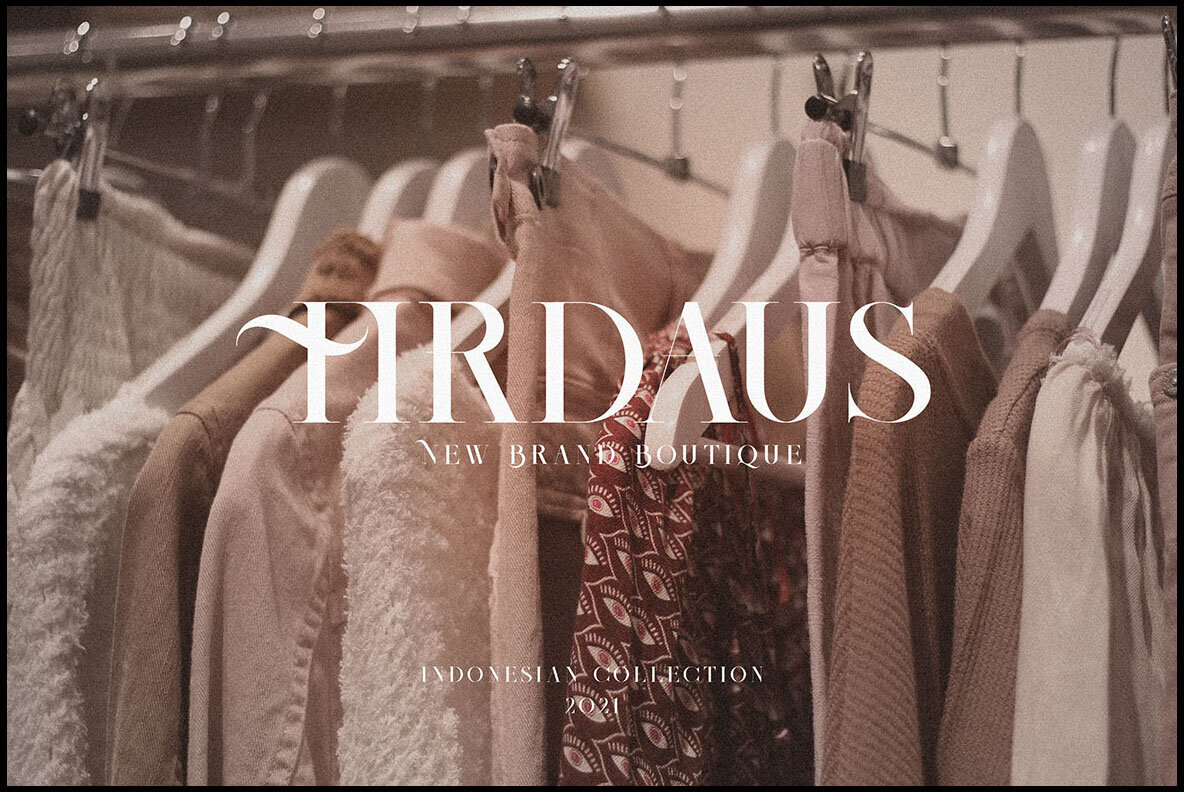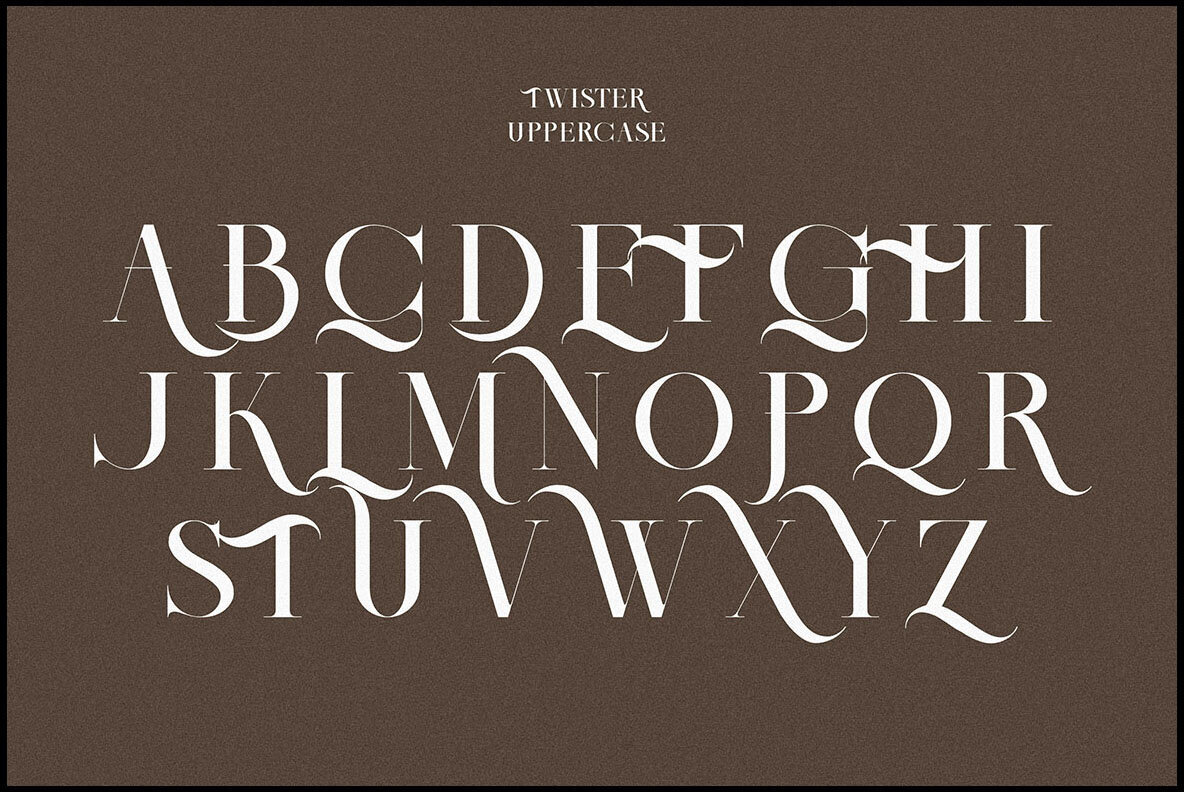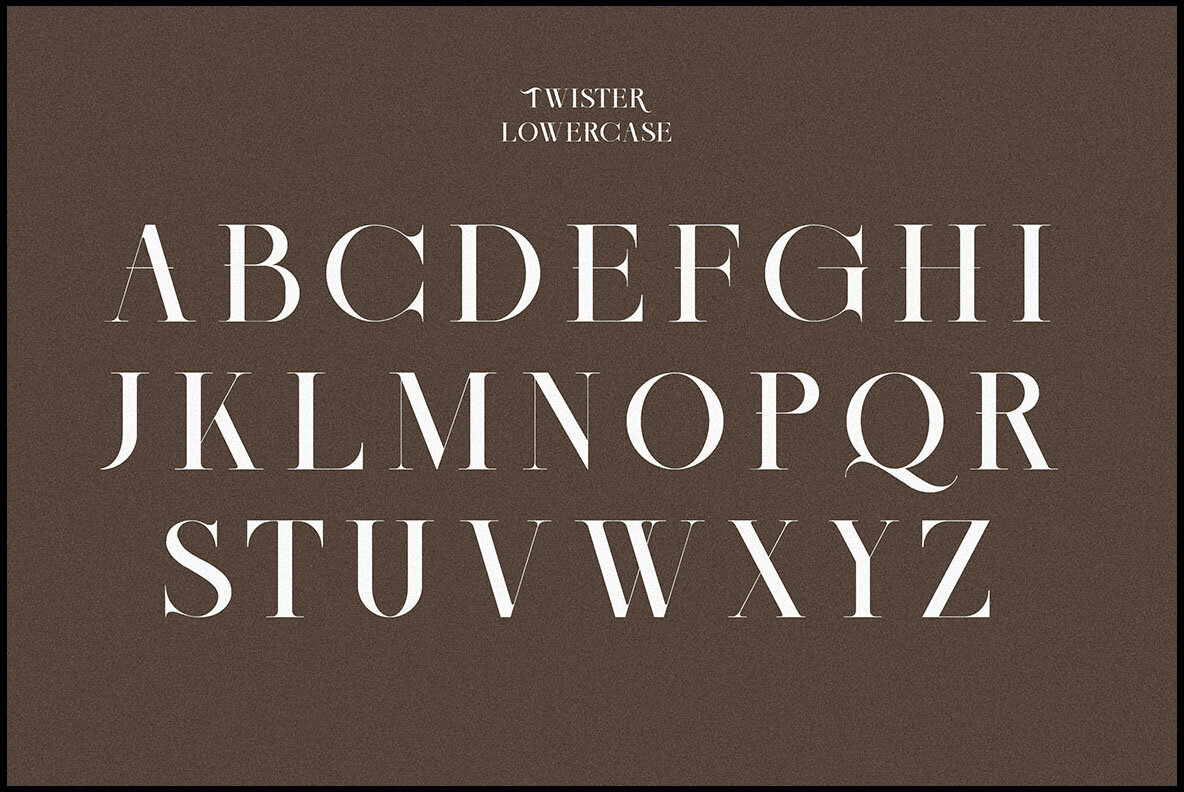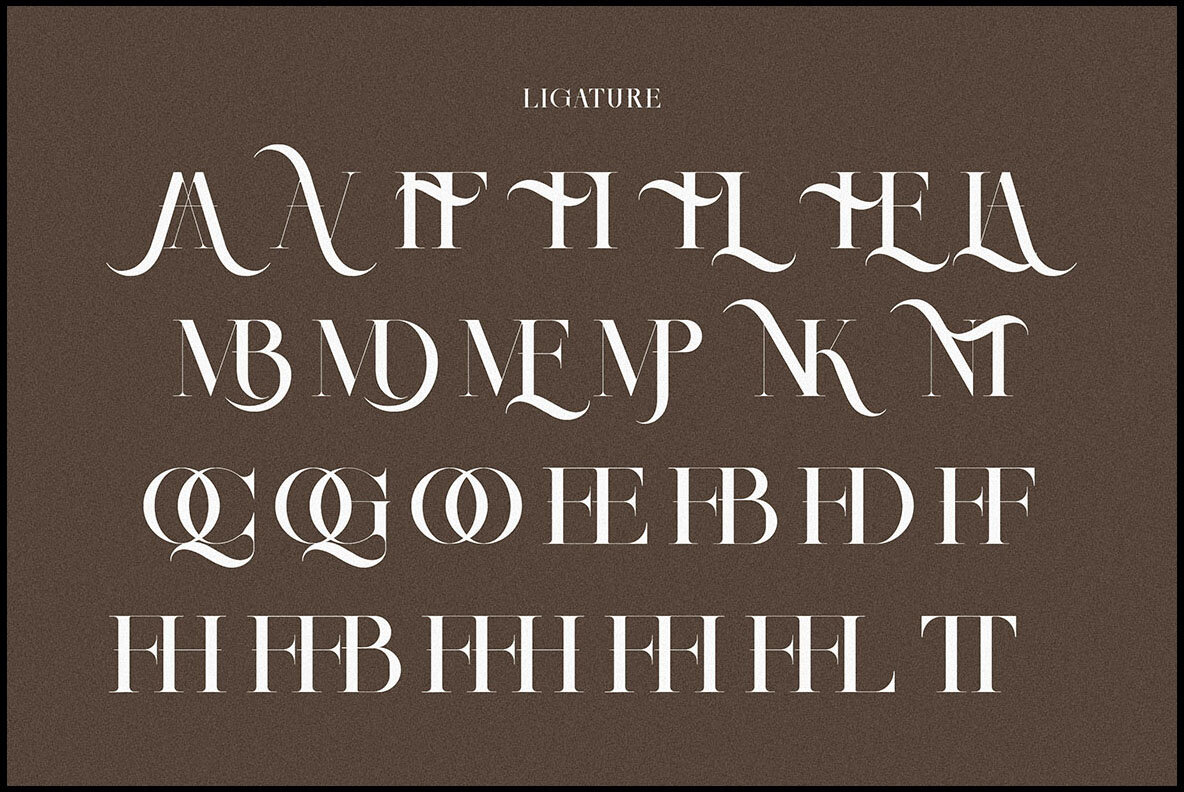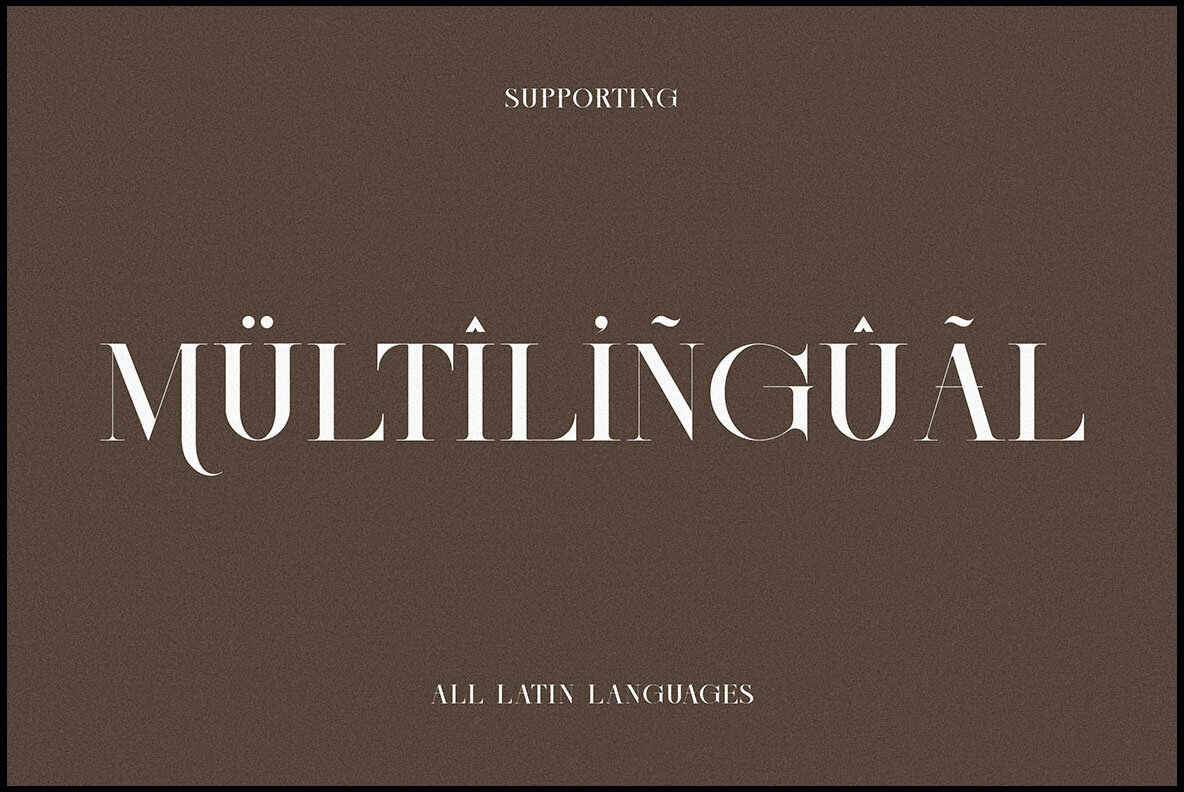
Twister: Decorative Vintage Serif Font
Twister by Peter Olexa is a unique serif font that combines modern and vintage styles with decorative elements. This typeface is ideal for creating standout logos or enhancing branding projects with a touch of retro charm.
• Multilingual Support – Facilitates global communication.
• Ligatures – Adds finesse and creativity to typographic designs.
• Versatile Use – Perfect for retro or vintage style branding projects.